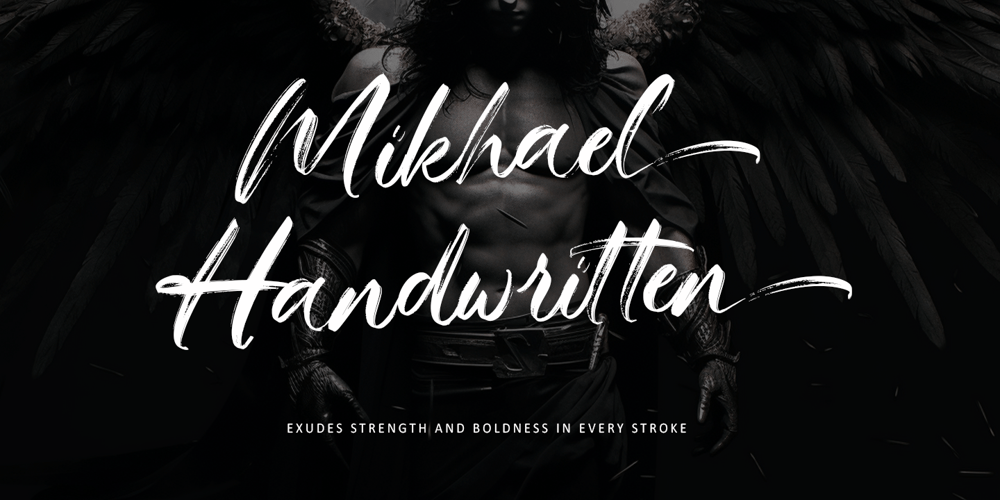
Mikhael Handwritten Font Family was designed by Thomas Aradea and published by Letterara. Mikhael Handwritten contains 2 styles and family package options. Introducing Mikhael Handwritten, an authentic brush script font that brings a raw and energetic vibe to your designs. With its dynamic strokes and natural brush texture, this font is crafted to make a bold statement in logos, posters, packaging, and various design projects. Its striking appearance and smooth flow make it an ideal choice for conveying a strong and stylish impression. PUA encoding ensures effortless access to all the expressive glyphs. Elevate your projects with Mikhael Handwritten, a font that effortlessly infuses vigor and character into your creative endeavors.